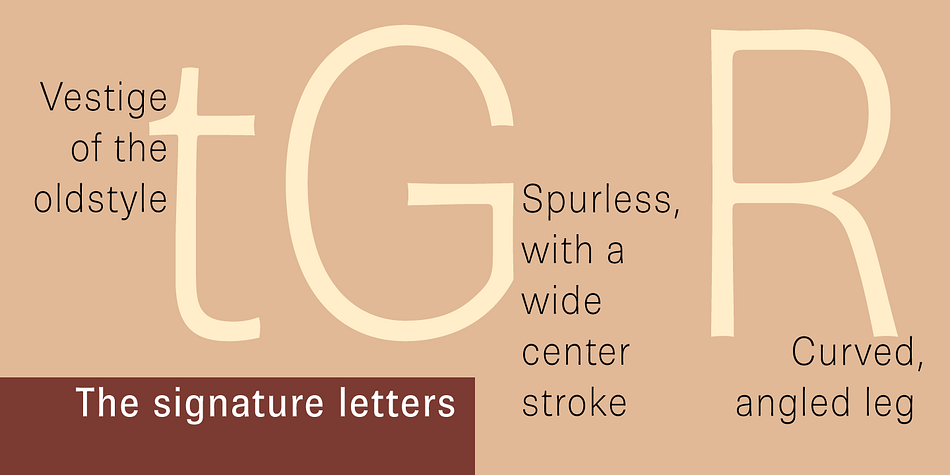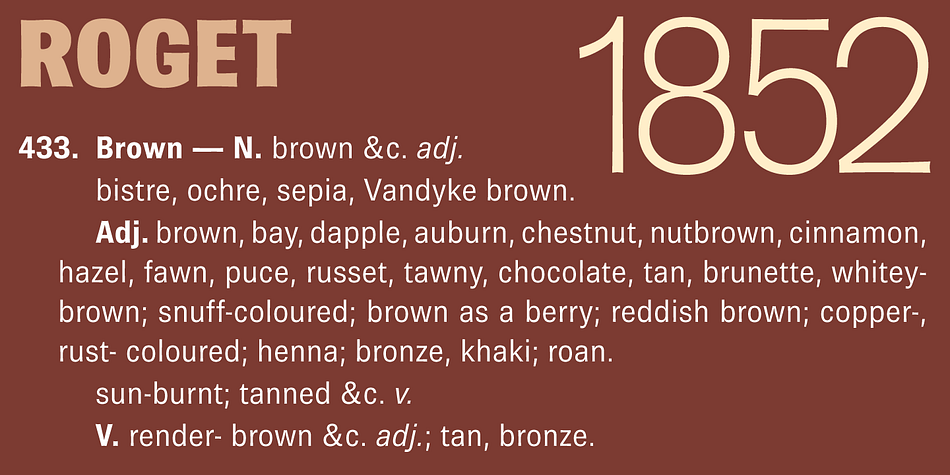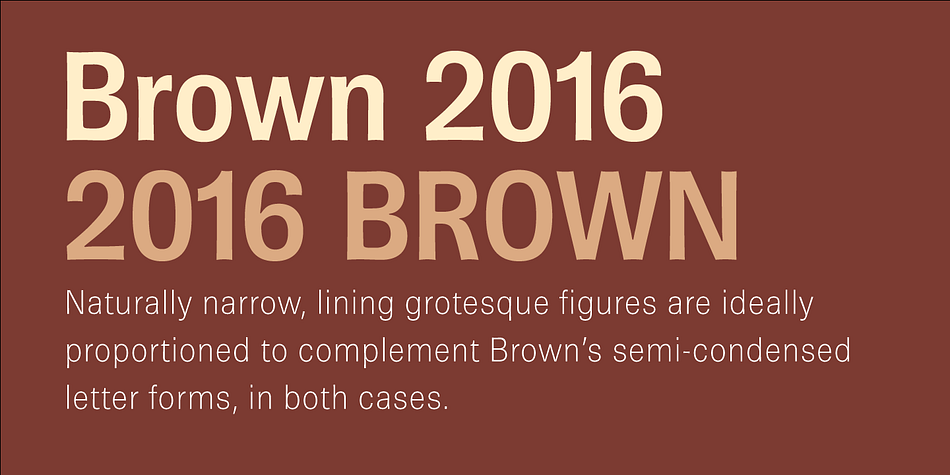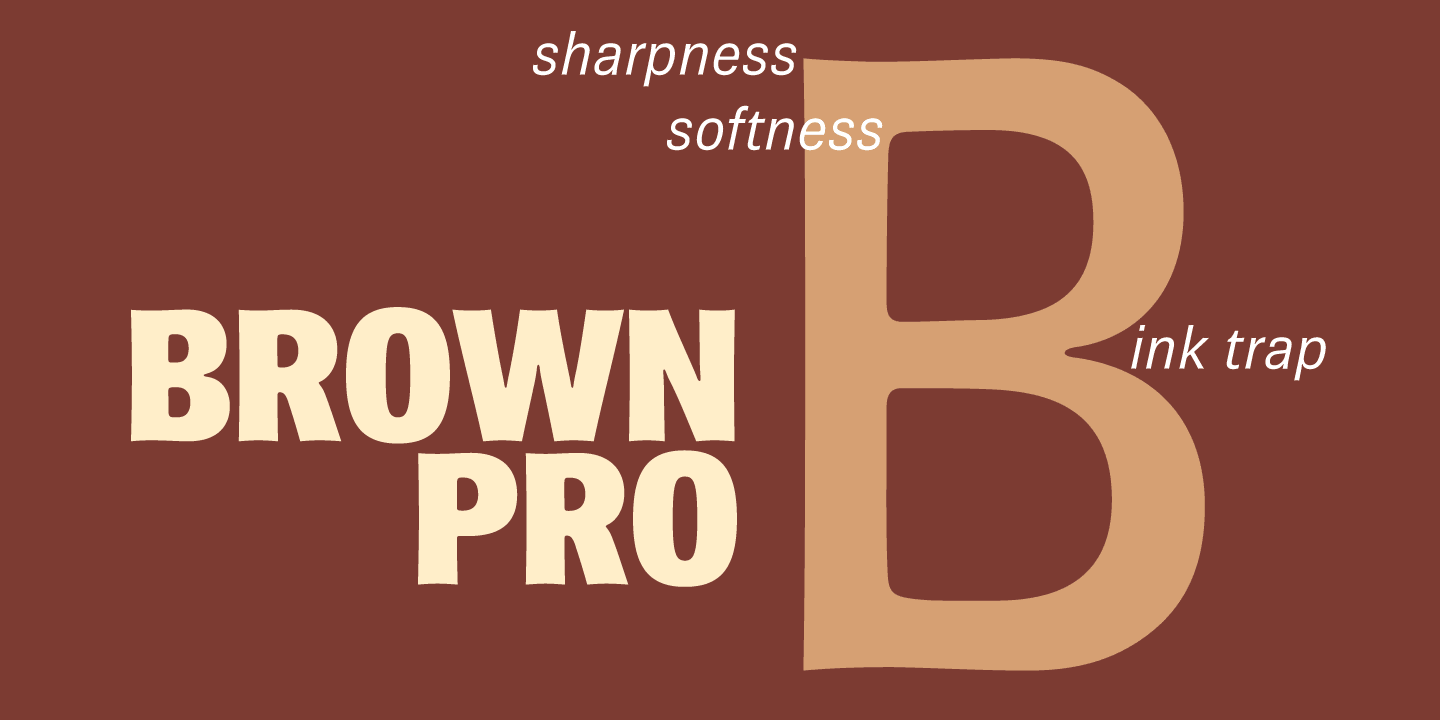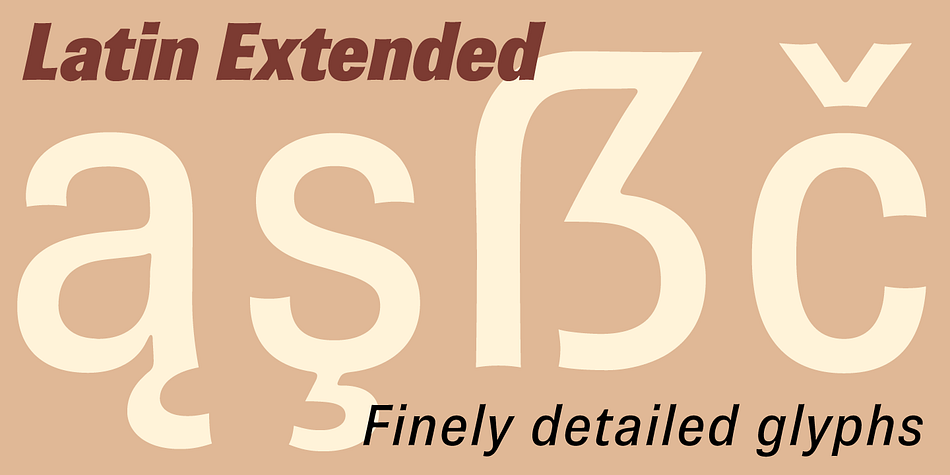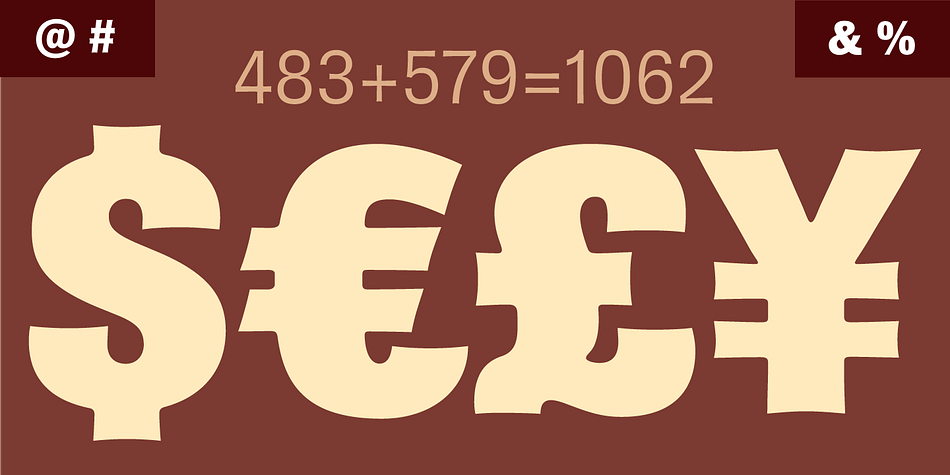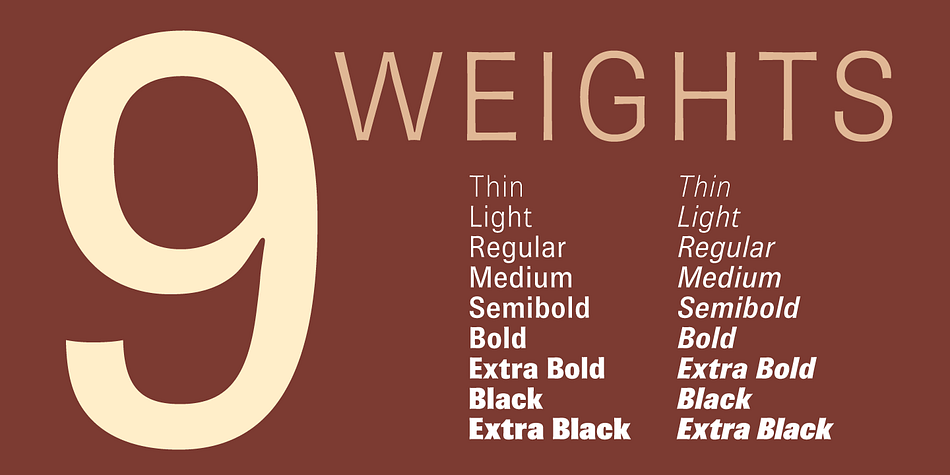
Designed by Nick Shinn, Brown Pro is a sans serif font family. This typeface has nineteen styles and was published by Shinntype.
At text size, Brown is a classic grotesque, distinguished by its semi-condensed proportions—especially in the capitals, which harmonize well with the lining figures—and an exceptional clarity in certain high-resolution media, such as offset printing, achieved by micro-detailing.
At display size, the detailing provides the otherwise austere forms of the neo-grotesque with a subtle wealth of visual interest.
Foundry | Shinntype |
Designer | Nick Shinn |